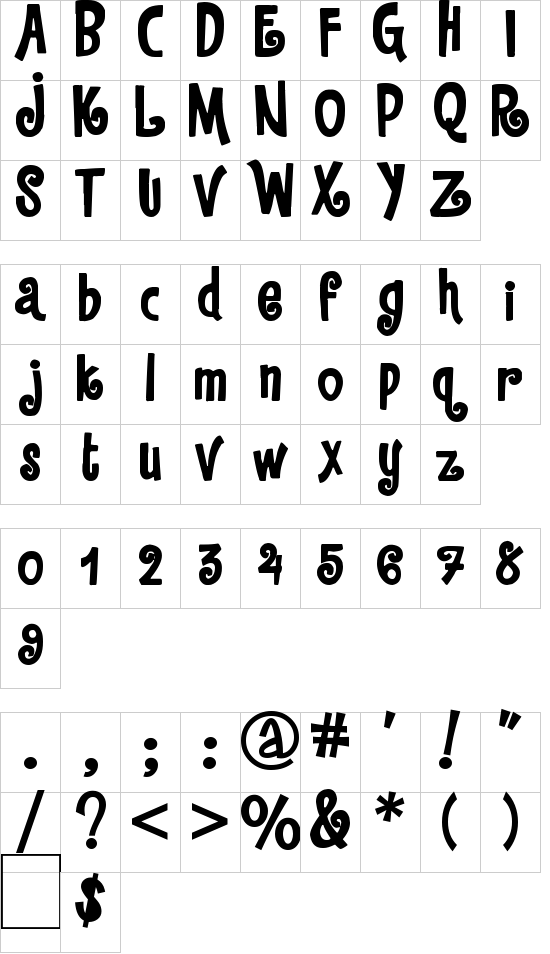
Oh {Photo} Shoot! is a bubbly cartoon font with rounded, animated letters that bounce along the baseline. The thick, even strokes and soft corners give it a cheerful, energetic look, while the slightly irregular shapes keep it lively rather than mechanical, landing somewhere between a comic balloon and a friendly hand drawing.
This upbeat style fits photography branding, kids products, comic lettering, and fun social media graphics that want an approachable personality. Oh {Photo} Shoot! is free to download as a TrueType file, and the preview tool lets you type your own words so you can see how the playful letters work in a headline or logo before downloading.